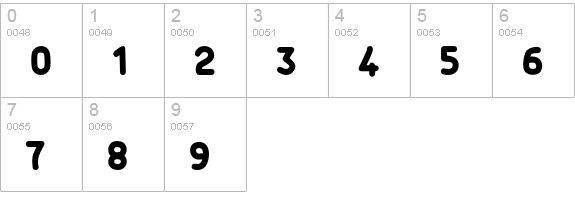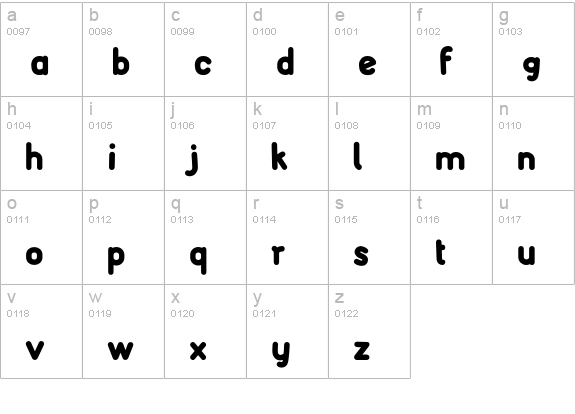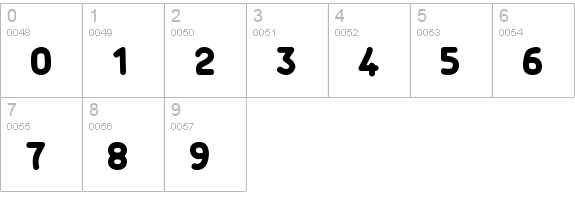
FontSoupGerman-ExtraBoiled Font Details
FontSoupGerman-ExtraBoiled is a unique and eye-catching font that adds a touch of creativity and personality to any design project. With its bold and striking appearance, this font is sure to make a statement and capture the attention of viewers. The extra boiled style gives it a distinct and modern look that sets it apart from other fonts. The best part about FontSoupGerman-ExtraBoiled is that it is available for free download at FontsMarket.com. This means that you can easily access and use this font in your projects without any cost. Whether you're working on a poster, website, or any other design project, FontSoupGerman-ExtraBoiled is a versatile font that will enhance your work and help you stand out from the crowd. Don't miss out on the opportunity to add this fantastic font to your collection. Download FontSoupGerman-ExtraBoiled for free today and take your designs to the next level!